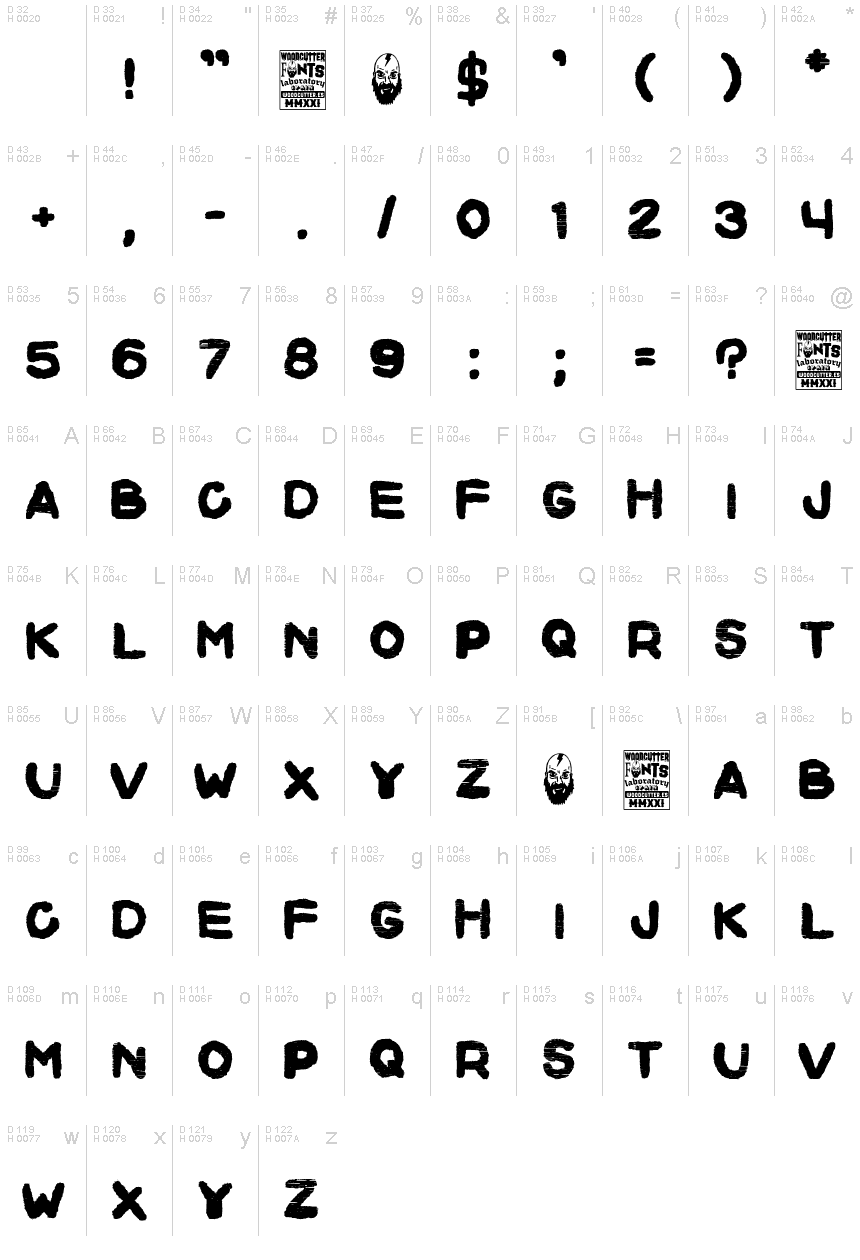
Square Thief
Introducing Square Thief: a bold, eroded display font created by Woodcutter Manero. Perfect for creating eye-catching logos, posters and t-shirt designs that stand out from the crowd. Its wide weight makes it ideal for large headlines and titles.